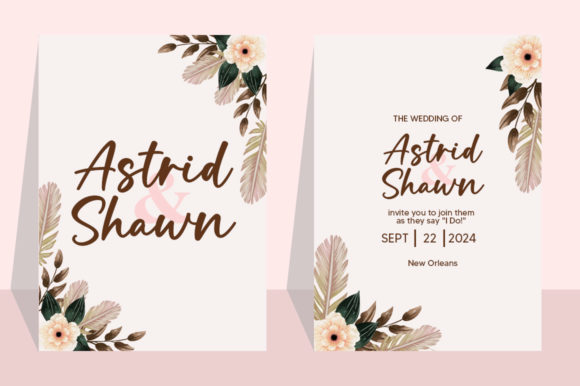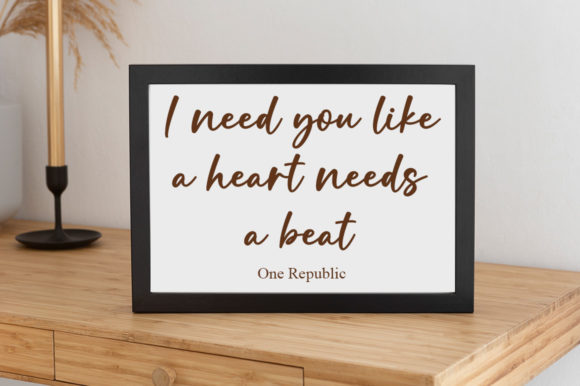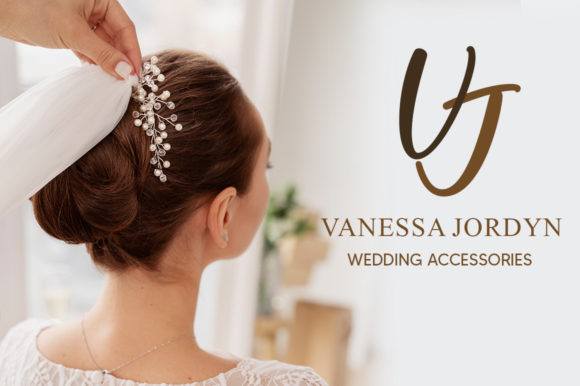
Introduction to Marisha Font
Marisha is a delicate, elegant, and flowing handwritten font.
It has beautiful and well-balanced characters and as a result, it matches a wide pool of designs Marisha is PUA encoded, which means you can access all of the glyphs and swashes with ease.
Key Features of Marisha Font